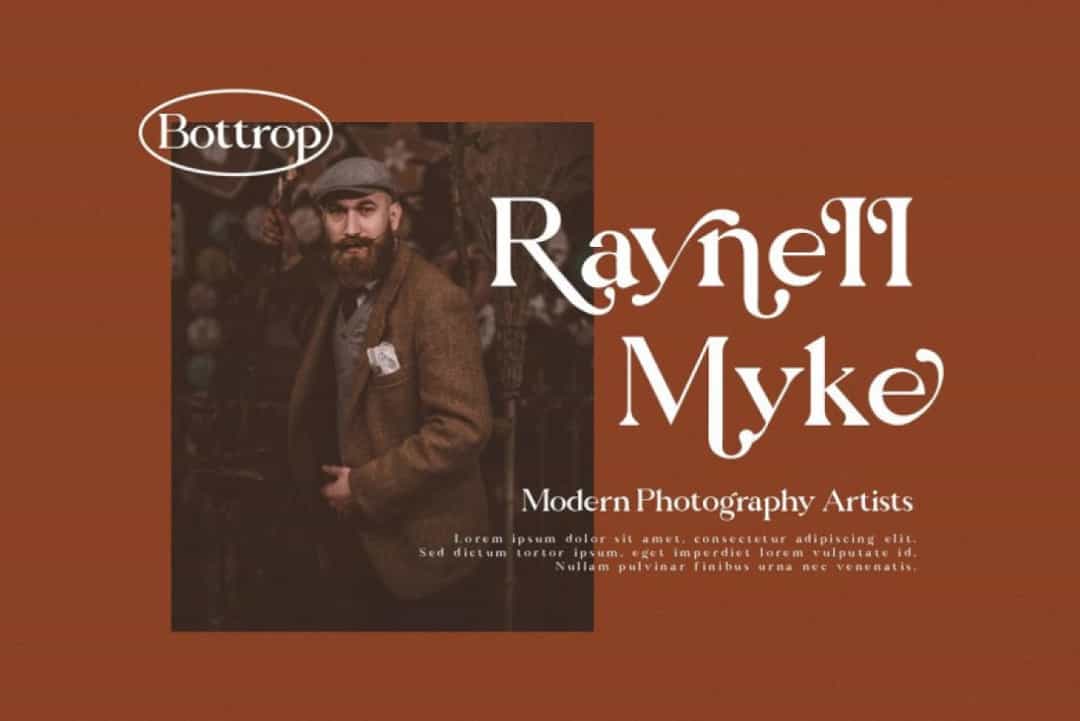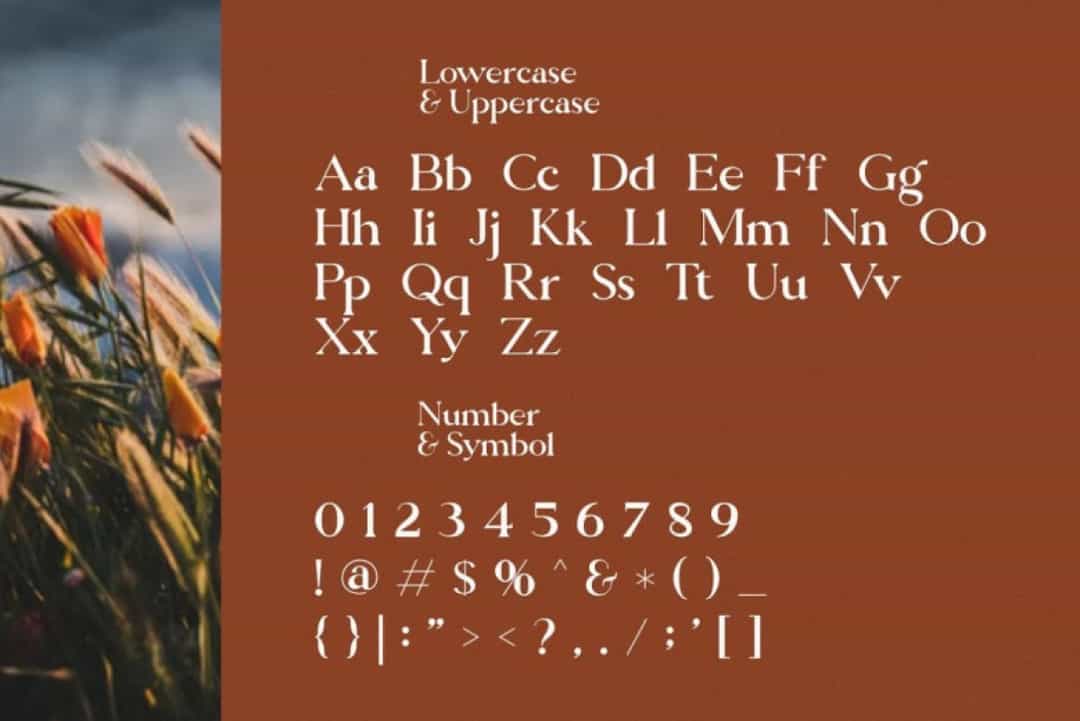
Dalgona Candy is an eye-catching serif font with retro and modern influences, perfect for creating exciting design elements in any work context, such as store branding, quotes or titles for films or magazines, product designs or product names.